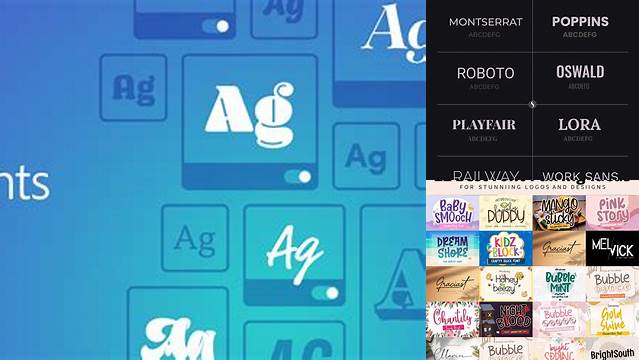
Top Adobe Fonts For Stunning Logos
Hey everyone! Logos, guys, they're like the handshake of a brand, right? They're the first impression, the visual hook that grabs attention. And a killer logo needs a killer font. So, what are the best Adobe fonts for logos? Choosing the right font can be a real game-changer, making your logo memorable, professional, and totally on-brand. We're diving deep into the world of Adobe fonts, exploring the best picks for logo design and why they work so well. Buckle up; it's font time!
H2: Understanding Font Selection for Logos
Alright, before we jump into the specific fonts, let's chat about the principles of font selection. Choosing the right font is not just about picking something pretty; it's about conveying the right message. It’s about understanding the personality you want your brand to have and selecting a font that reflects that. For instance, a sleek, modern tech company might go for a clean sans-serif font, while a vintage clothing store might opt for a classic serif font. The font's characteristics, like its weight (bold, regular, light), style (italic, upright), and overall shape, all contribute to how the logo is perceived. The choice of font can influence how the brand is perceived, from its values to its target audience.
Think about it: a heavy, bold font might convey strength and reliability, ideal for a bank or a construction company. A lighter, more delicate font could suggest elegance or femininity, perfect for a beauty brand or a florist. Also, consider the readability. Your logo needs to be clear and legible at any size, from a tiny icon on a mobile app to a massive banner ad. Avoid overly ornate or complex fonts that can become difficult to read at smaller sizes. Another critical aspect is the font's versatility. Will it work in different contexts? Will it look good on a website, business cards, and promotional materials? A versatile font can save you a lot of headaches down the line. Finally, consider the competition. Take a look at what fonts your competitors are using. You don't want to use the exact same font, but you also want to make sure your font doesn't clash or feel completely out of place within your industry. Always remember, the best Adobe fonts for logos are those that not only look great but also communicate the brand's essence effectively and are adaptable to various applications. The right font strengthens brand recognition and makes the brand more memorable for the audience.
H3: The Importance of Font Pairing in Logo Design
Font pairing, guys, is the secret sauce of effective logo design. It is the process of selecting two or more fonts that complement each other, creating visual harmony and enhancing the overall message of the logo. The wrong pairing can make your logo look cluttered, confusing, and even unprofessional. The right pairing, however, can elevate your design, making it more appealing and memorable. There are several ways to approach font pairing. One popular method is to combine a serif font with a sans-serif font. Serifs are fonts that have small decorative strokes at the end of each letter, while sans-serifs lack these strokes. This contrast in style can create visual interest and hierarchy. For example, a classic serif font like Playfair Display could be paired with a clean sans-serif font like Open Sans for a timeless, elegant feel. Another approach is to pair fonts within the same family but with different weights or styles. This creates a cohesive look while still adding variety. For instance, you could use a bold version of a sans-serif font for the logo's primary text and a lighter version for the tagline or supporting text. This provides visual emphasis and maintains consistency. You can also consider using fonts with similar characteristics but with slight differences. This can create a subtle harmony that adds visual interest without overwhelming the viewer. Think about pairing a font with rounded edges with a font with more geometric shapes. In this case, selecting the best Adobe fonts for logos is just the first step. The magic happens when you learn to combine them. The goal of font pairing is to achieve balance and contrast.
H2: Top Sans-Serif Fonts for Logo Designs
Alright, let's dive into some font specifics! Sans-serif fonts are a classic choice for logos, and they're all about a clean, modern look. They work especially well for tech companies, startups, and any brand that wants to project a sense of simplicity and approachability. A well-chosen sans-serif font can project a message of innovation and modernity, which is essential for companies that want to portray themselves as forward-thinking. Let’s explore some of the top Adobe fonts for logos. These fonts are great choices for various reasons, including their readability, versatility, and visual appeal.
H3: Gotham: A Timeless Classic
Gotham is an absolute icon in the font world. It’s a geometric sans-serif that exudes sophistication and modernity. It’s known for its clean lines, balanced proportions, and versatility. Gotham’s rounded letterforms give it a friendly feel, making it a great choice for brands that want to appear approachable. This font’s wide range of weights and styles makes it incredibly versatile, allowing you to create a variety of looks. Whether you're designing a logo for a financial institution, a media company, or a fashion brand, Gotham adapts seamlessly. Its clean lines and balanced proportions translate well across various platforms, from print to digital, ensuring the logo is clear and impactful. Gotham has been used by numerous iconic brands, including the Obama presidential campaign, demonstrating its power and appeal. If you are looking for the best Adobe fonts for logos, then Gotham should be on your list. Its timeless appeal and adaptability make it a great choice for a wide variety of brands.
H3: Montserrat: A Modern and Versatile Option
Montserrat is another fantastic sans-serif font that is both modern and incredibly versatile. Inspired by the architecture of the Montserrat neighborhood in Buenos Aires, this font has a geometric feel, is incredibly readable, and offers a wide range of weights. It’s a great choice for businesses that want a contemporary and accessible look. This font’s clean design ensures that logos are easy to read, even in small sizes. It’s perfect for logos that need to work on various platforms, including websites, social media, and printed materials. Its design is designed for both clarity and aesthetic appeal. Montserrat is a cost-effective alternative. If you’re working on a budget, Montserrat’s open-source license makes it free to use for personal and commercial projects. The font is also available in a variety of weights and styles, enabling designers to create various looks. Whether you're designing for a tech startup, a retail brand, or a non-profit organization, Montserrat provides the flexibility to create a unique brand identity. Montserrat is a great option for creating logos because of its versatility and readability. This makes it one of the best Adobe fonts for logos.
H3: Open Sans: A Highly Readable Choice
Open Sans is another great option for logo design, especially if readability is your top priority. It is a highly readable sans-serif font designed for both print and on-screen use. Its open, friendly appearance makes it a good fit for a wide range of brands, particularly those that want to project a feeling of approachability and trustworthiness. Its clean lines and clear letterforms make it easy to read in various sizes and on different devices. This is crucial for logo design, where the logo must be easily recognizable even when scaled down. Open Sans’ neutral design makes it an excellent choice for brands in various sectors. Whether designing for a financial institution, a health clinic, or a retail outlet, Open Sans will fit your brand personality. In addition, Open Sans is available in various weights and styles, providing a lot of flexibility. Its design and readability make it a great choice. Open Sans is among the best Adobe fonts for logos.
H2: Top Serif Fonts for Logo Designs
Let’s switch gears and explore serif fonts. Serif fonts have small decorative strokes, called serifs, at the end of each letter. They tend to convey a sense of tradition, trust, and sophistication. While perhaps not as trendy as sans-serif fonts, serif fonts can be a great choice for logos, especially for brands that want to convey a feeling of heritage, elegance, or authority. If you need to project a trustworthy and experienced image, then consider these serif fonts. Let's look at the best Adobe fonts for logos.